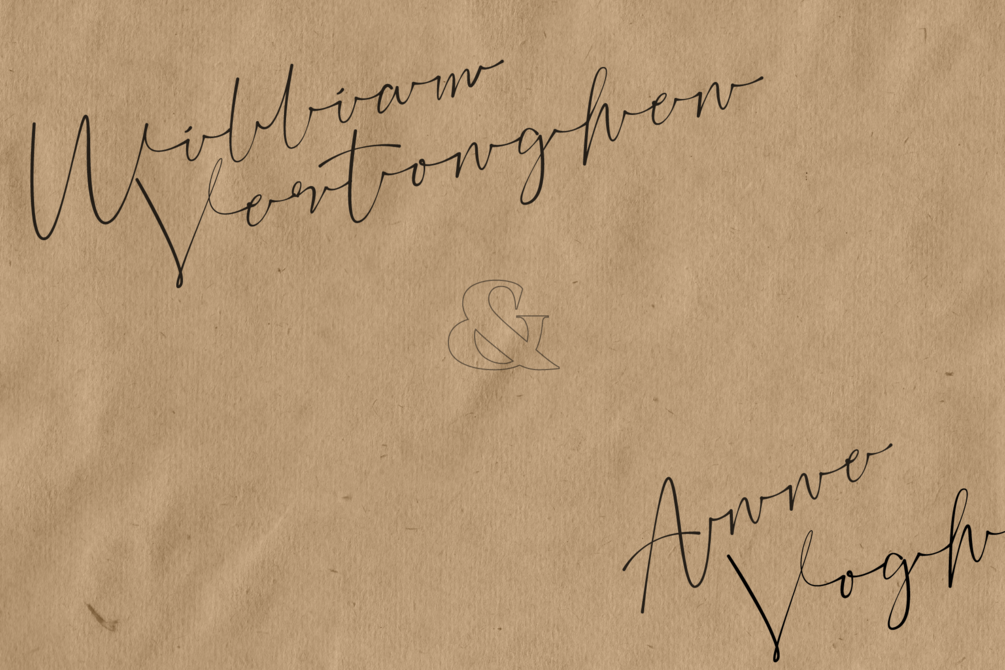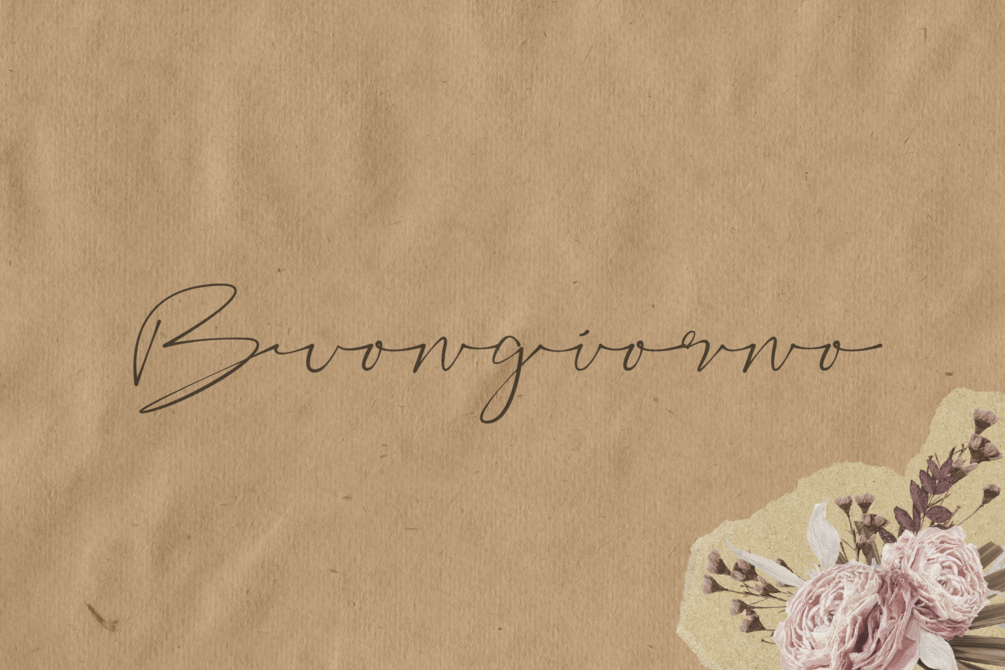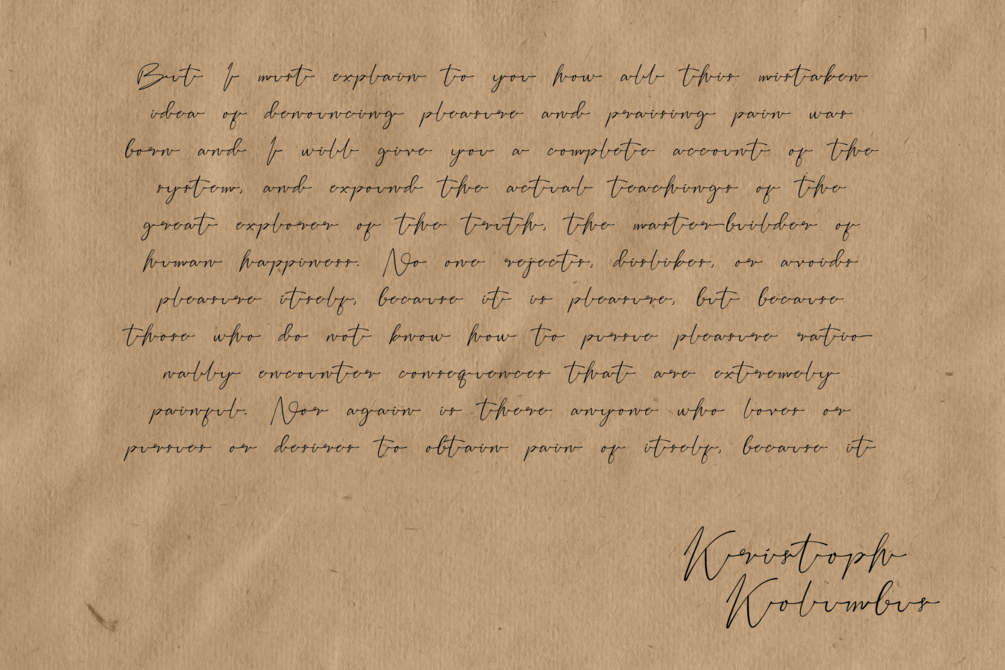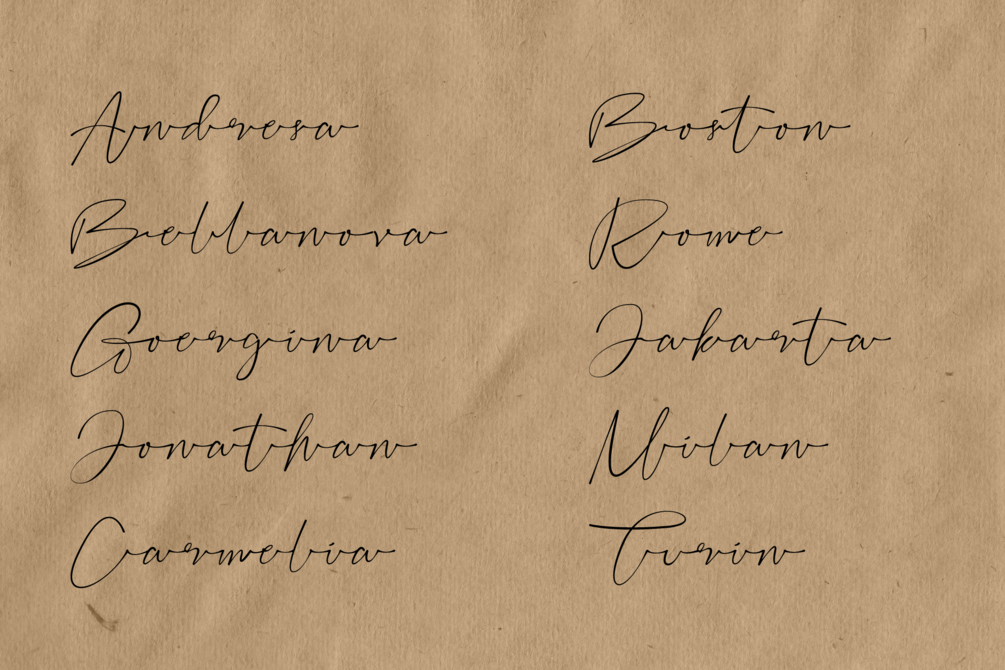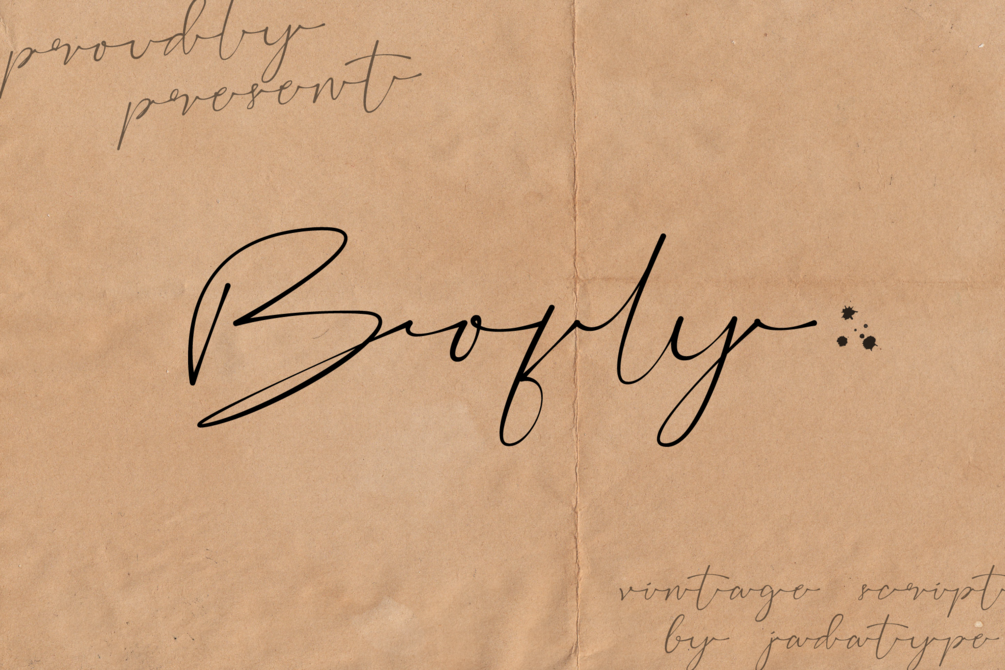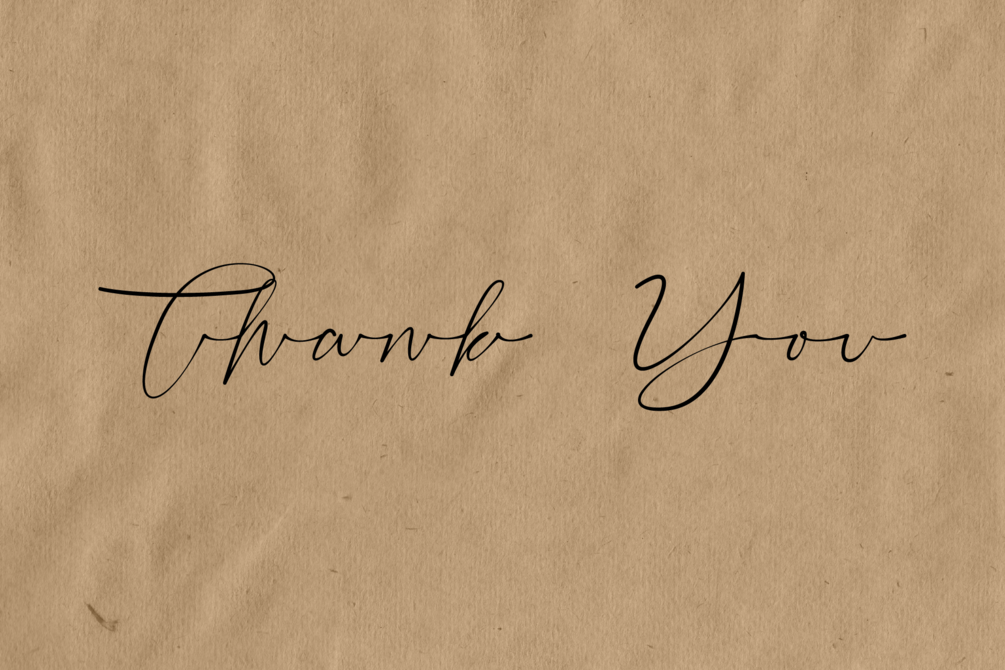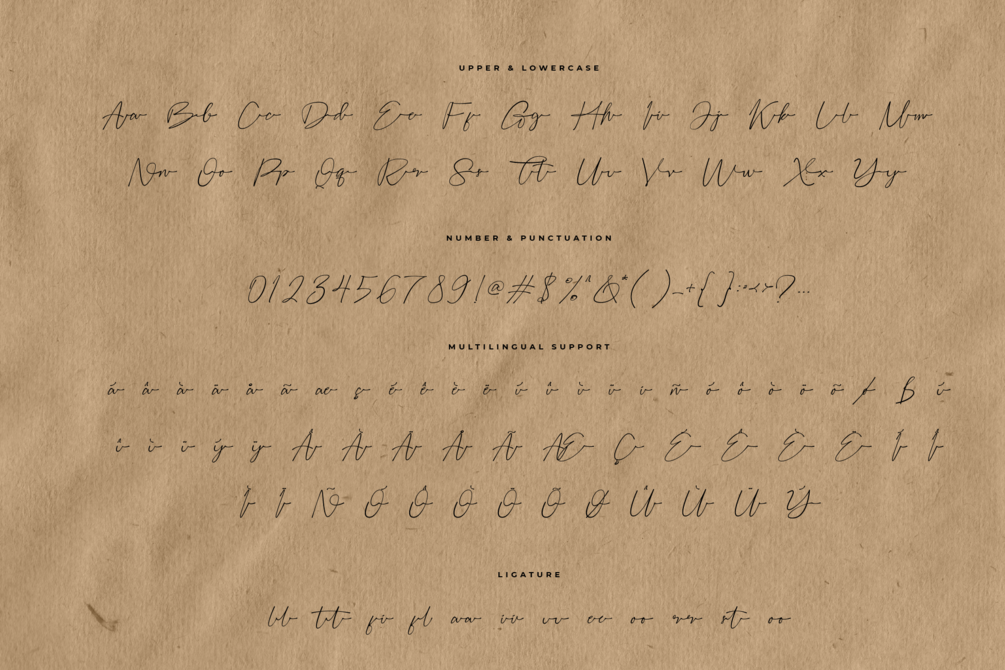
Bofly Font
Bofly is a script font that comes with a Hand-Signature style. suitable for product, branding, social media, notes and so on. contains standard English letters, numbers, punctuation, and several accents that support multilingualism.